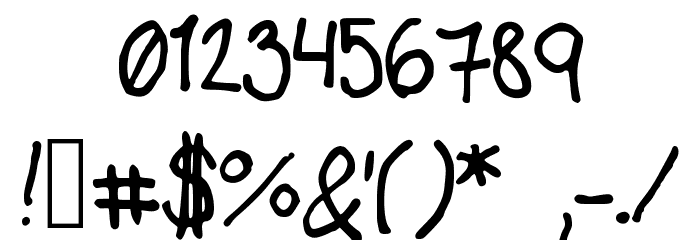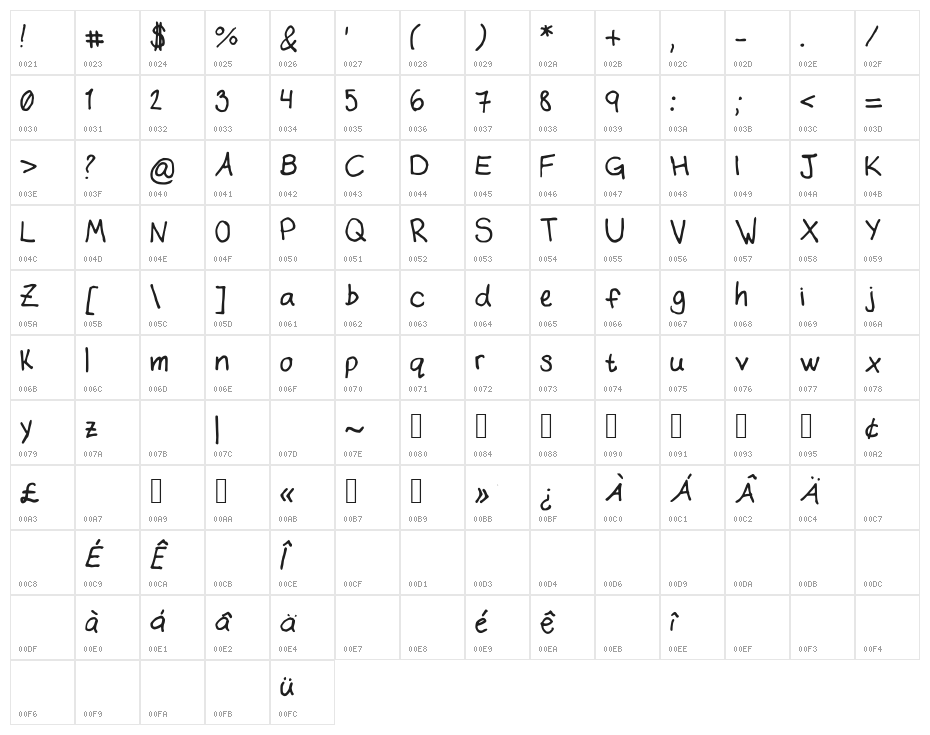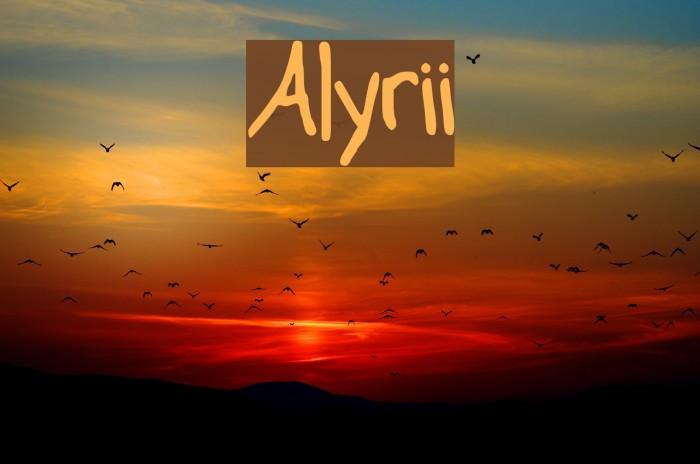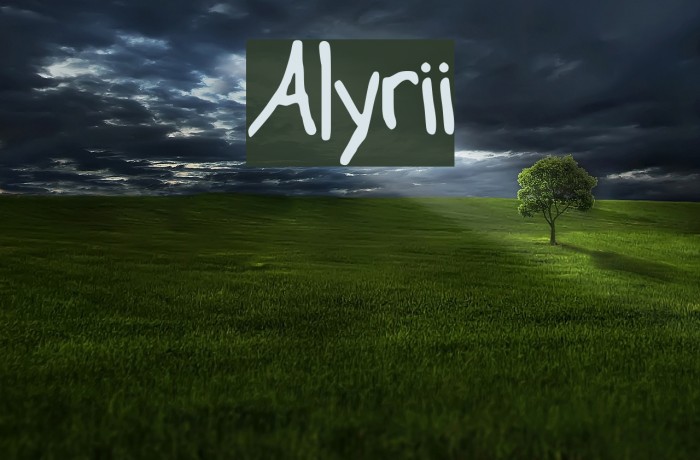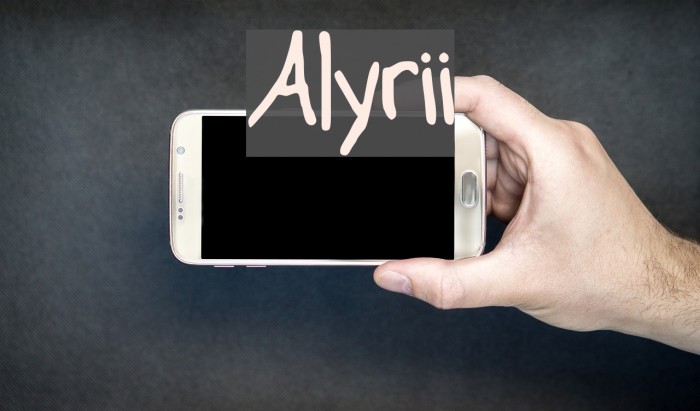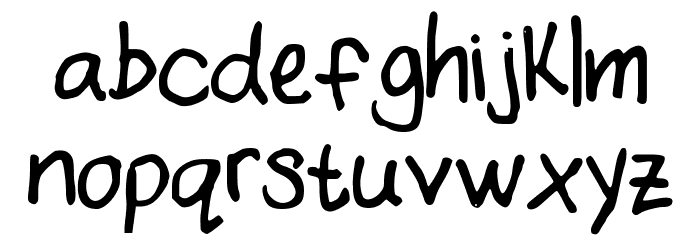
Alyrii Font
Alyrii Description
This font features a playful and informal handwritten style, characterized by its irregular strokes and casual appearance. The uppercase and lowercase letters maintain a consistent flow, with slightly uneven baselines that add to its charm. The numbers and special characters follow the same whimsical design, making it suitable for projects that require a personal touch. The strokes are moderately thick, providing good readability while retaining a relaxed aesthetic. This font is ideal for creative projects, children's books, or any design that benefits from a friendly and approachable look.
| Proposed Projects | Ideal for children's books, greeting cards, personal blogs, and creative design projects. |